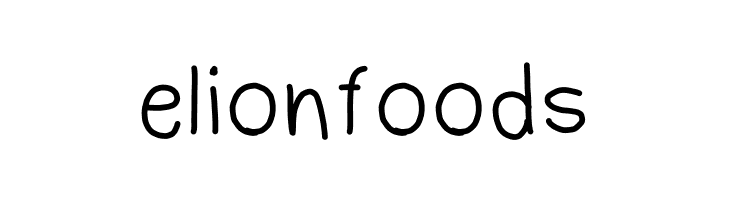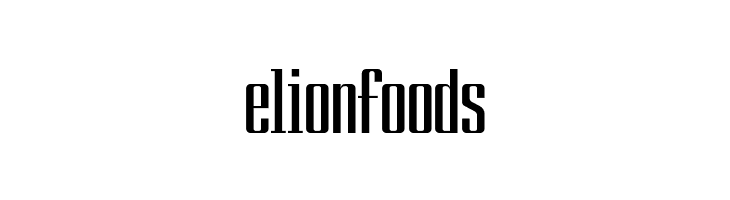
A decorative, runic-inspired font with angular, geometric shapes.
A bold, angular font with a gothic and modern geometric flair.
A bold, angular font with a medieval or gothic style, featuring sharp, geometric characters.
A bold, decorative font with outlined characters for a striking visual impact.
A bold, geometric font with Art Deco influences, ideal for striking headlines.
A bold, condensed font with a modern and assertive style.
A cursive, handwritten-style font with smooth, interconnected strokes.
A bold, playful font with thick, rounded strokes and a whimsical touch.
A playful, whimsical handwritten font with curls and loops.
A playful, casual handwritten font with smooth, rounded edges and irregular letterforms.
A playful, casual handwritten font with smooth curves and informal letterforms.
A playful, handwritten script font with a casual and friendly style.
A bold, playful font with exaggerated strokes and a cartoonish style.
A playful, whimsical font with bold, hand-drawn characters and exaggerated serifs.
A playful, hand-drawn font with a sketch-like, chaotic appearance.
A bold, high-contrast font with geometric shapes and a modern, edgy style.
Bold, italicized font with a modern and dynamic style.
An elegant and versatile font with flowing curves and intricate details.
A bold, artistic script font with fluid, interconnected strokes and high contrast.
A bold, playful font with cat-like features integrated into each character.
A pixelated, blocky font with a retro digital aesthetic.
A bold, dot matrix style font with a retro digital feel.
A bold, grid-like pattern with vertical lines, ideal for modern designs.
A minimalist grid of vertical lines with a modern, structured appearance.
A playful, monster-themed decorative font with bold, geometric characters.